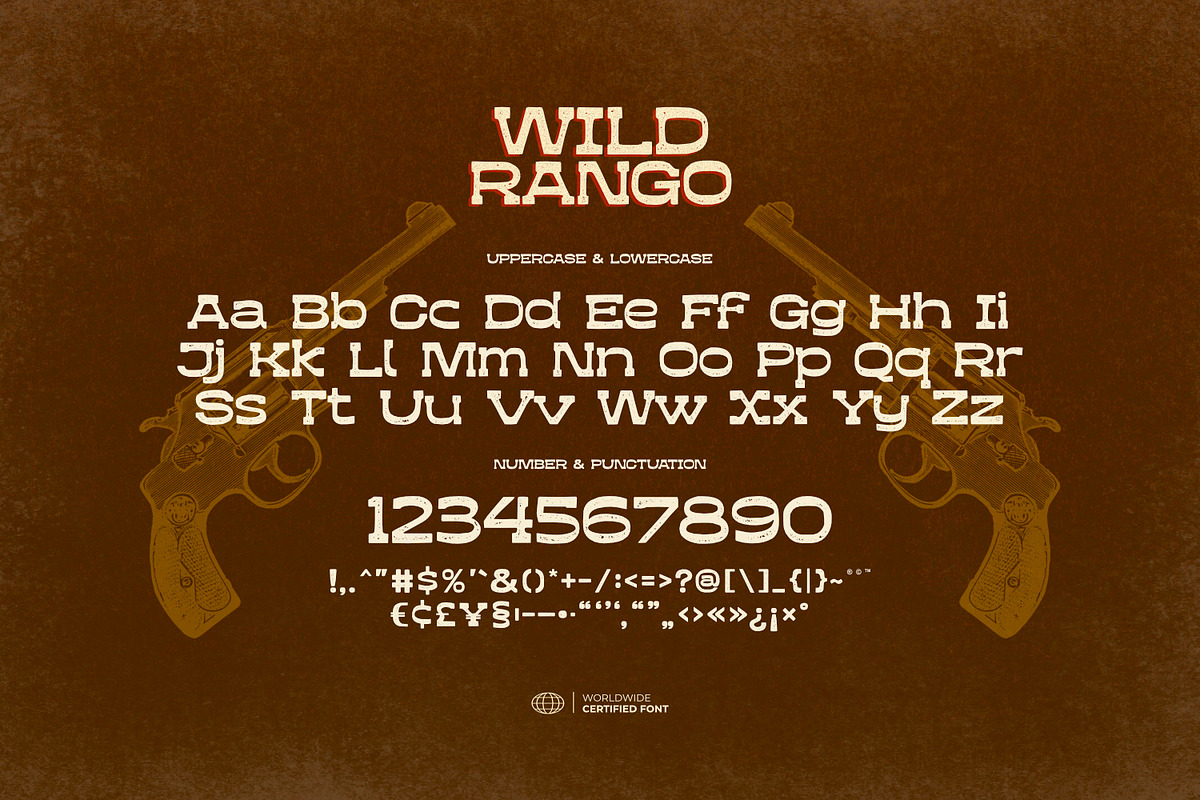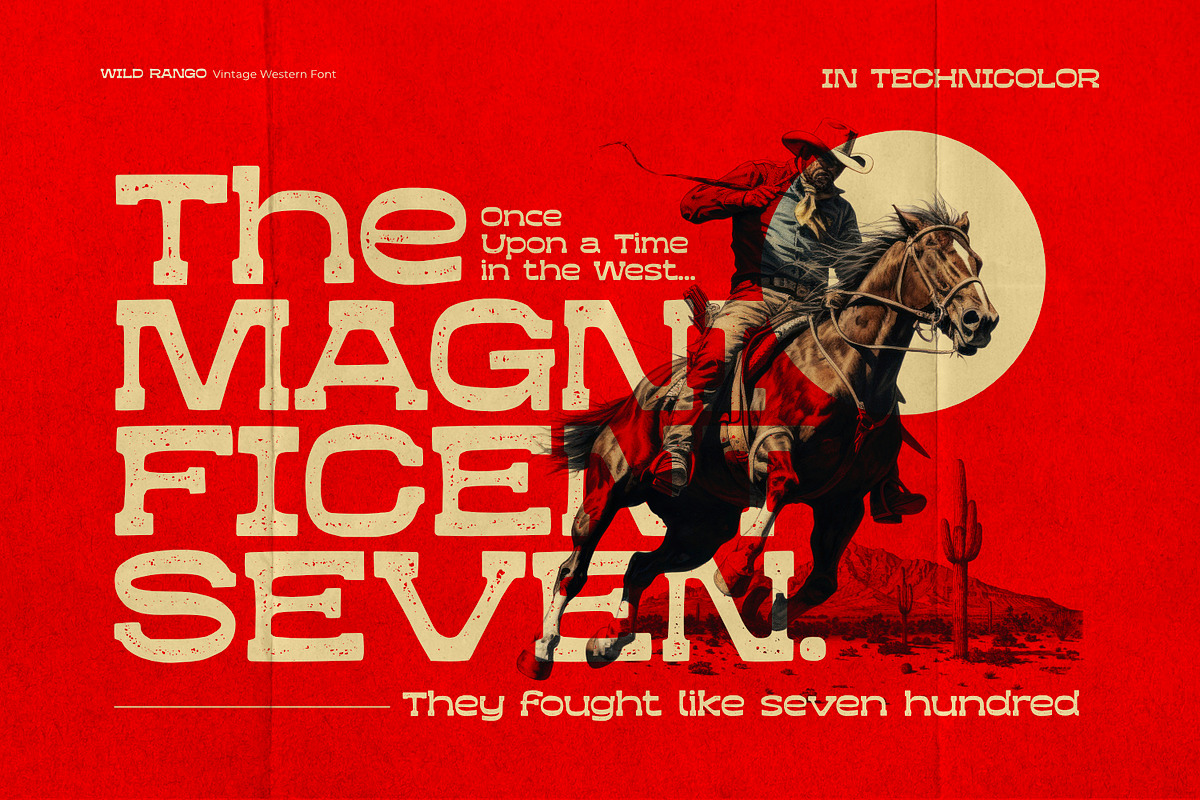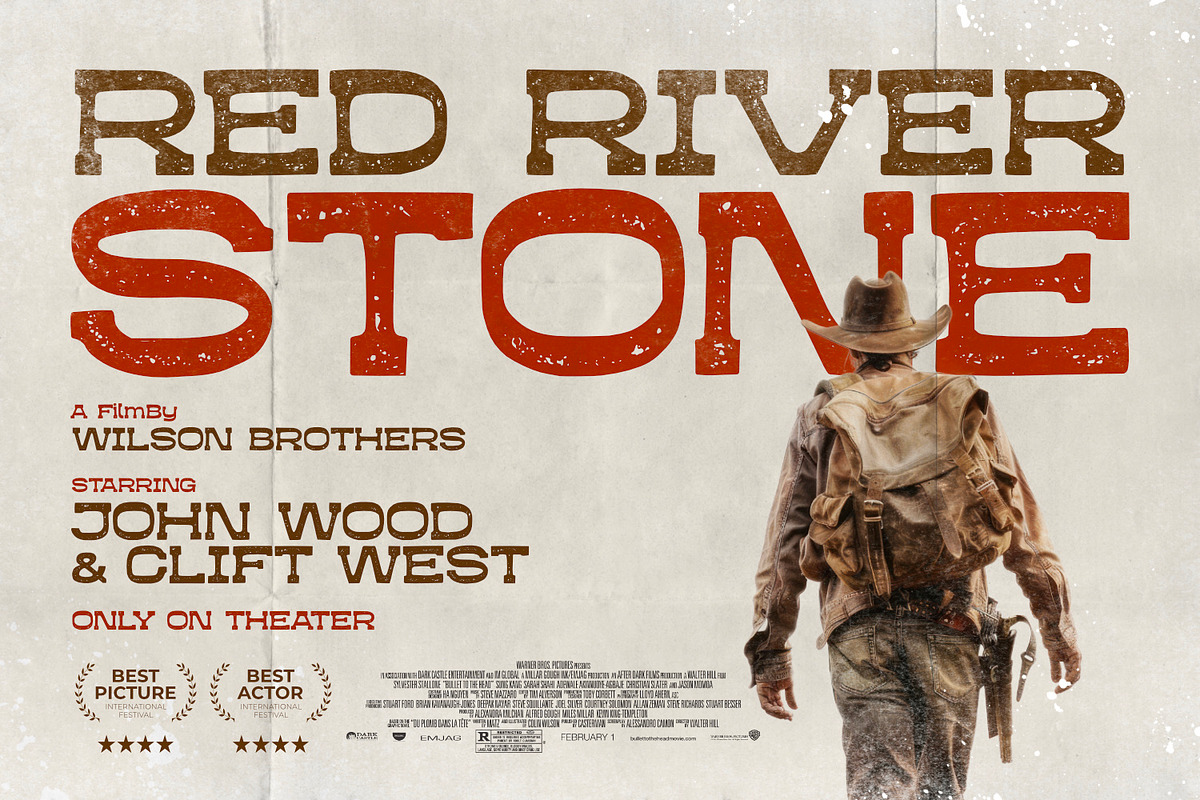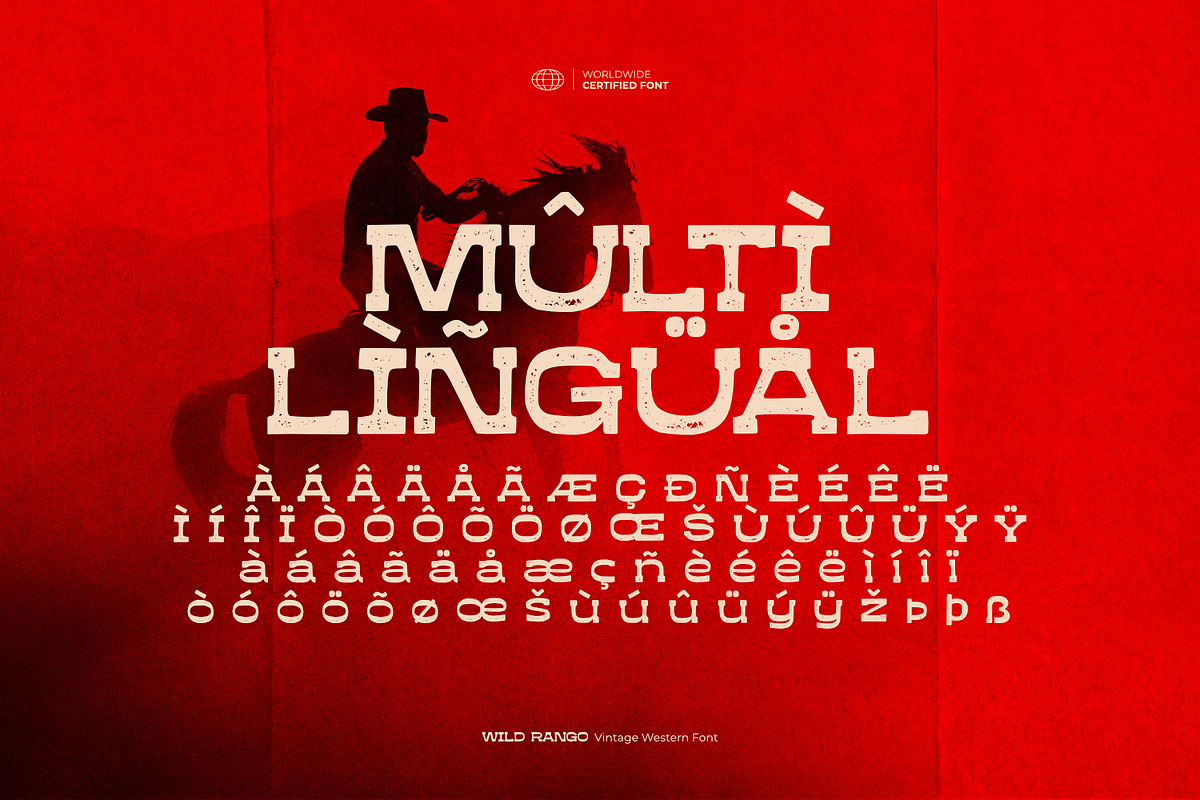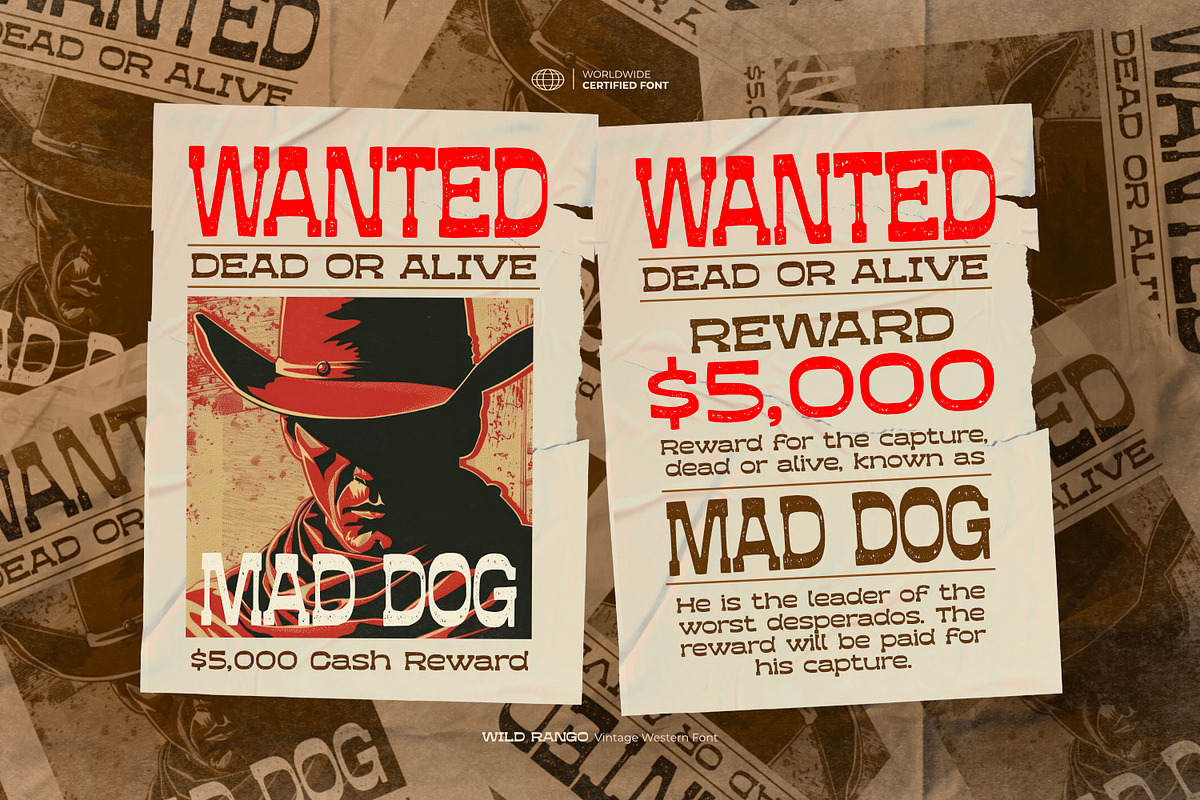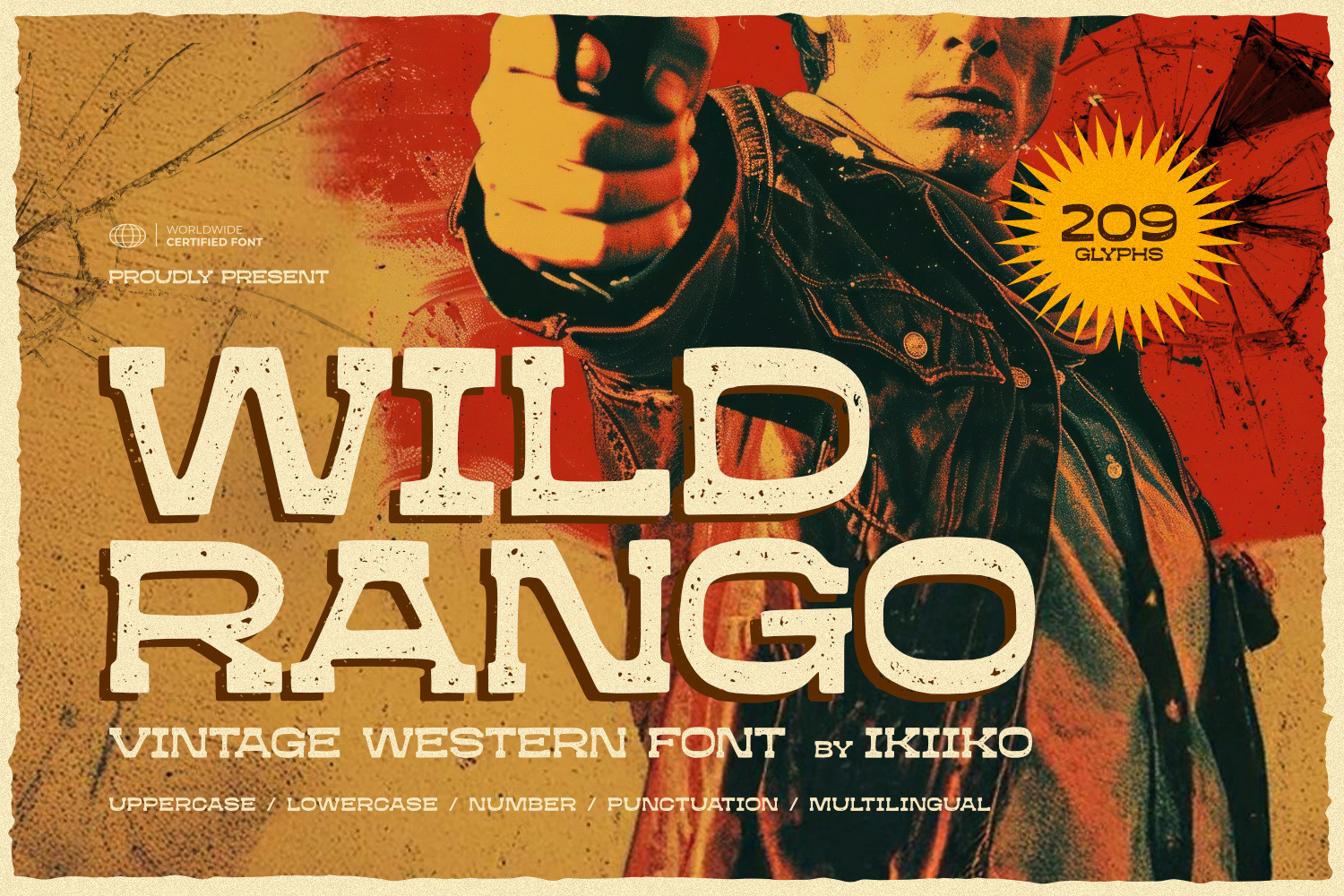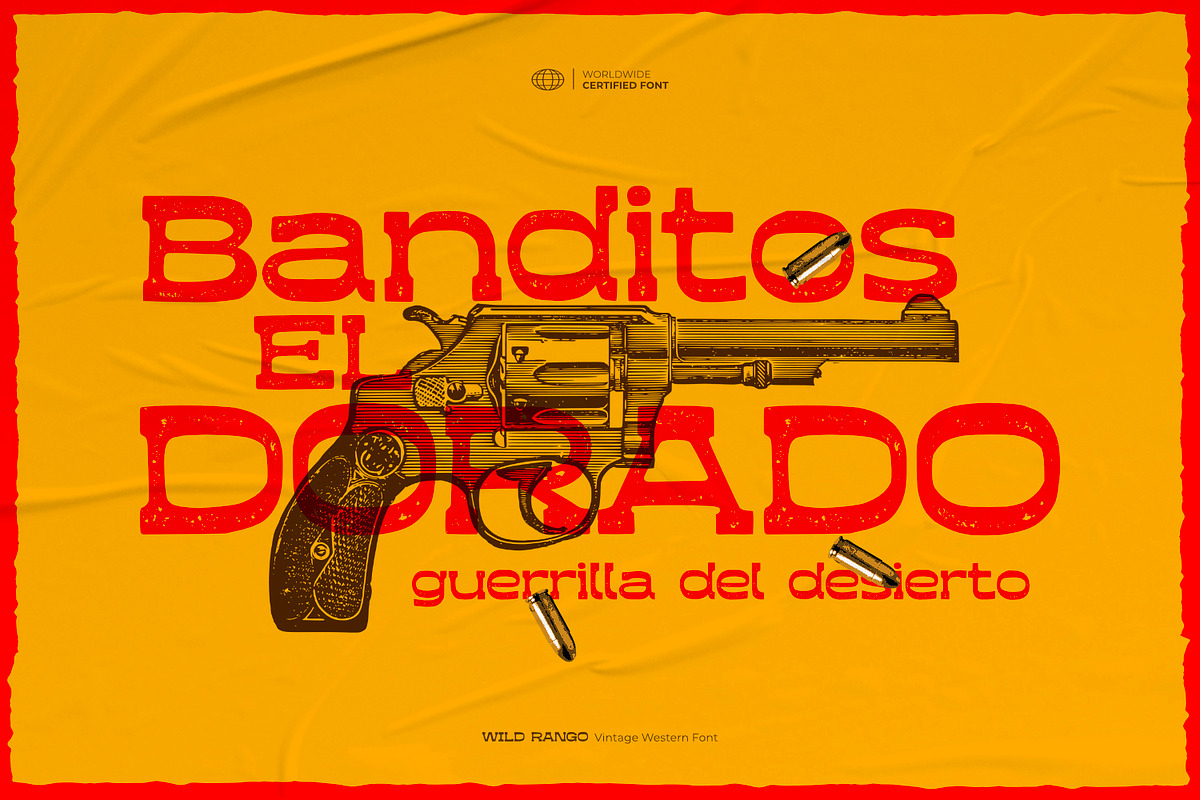
Wild Rango - Vintage Western Font
Proudly present Wild Rango - Vintage Western Font, created by ikiiko.
Wild Rango is a classic wild west cowboy-style font designed to evoke the charm and ruggedness of classic Americana. This hand-drawn typeface embodies the spirit of the frontier, making it the perfect choice for any project that wants to convey a sense of adventure and nostalgia.
Wild Rango features a unique blend of rugged effects and bold, expressive characters that are reminiscent of the dusty trails and iconic landscapes of the West. Whether you’re creating a movie poster that pays homage to classic cowboy films or designing branding materials that reflect an old-world aesthetic, this font delivers an undeniable sense of authenticity.
This font is very suitable for making a classic american stuff, vintage western movie, book cover, magazine layout, packaging, food & beverages, quotes, or simply as a stylish text overlay to any background image.